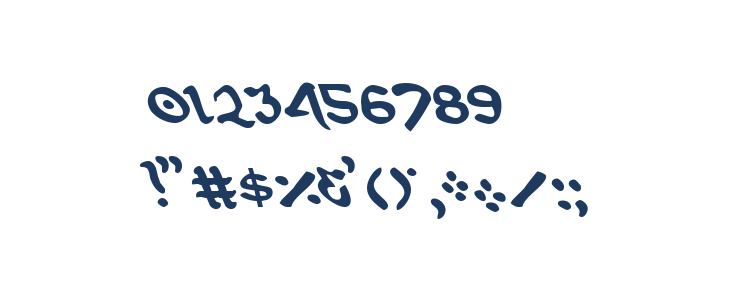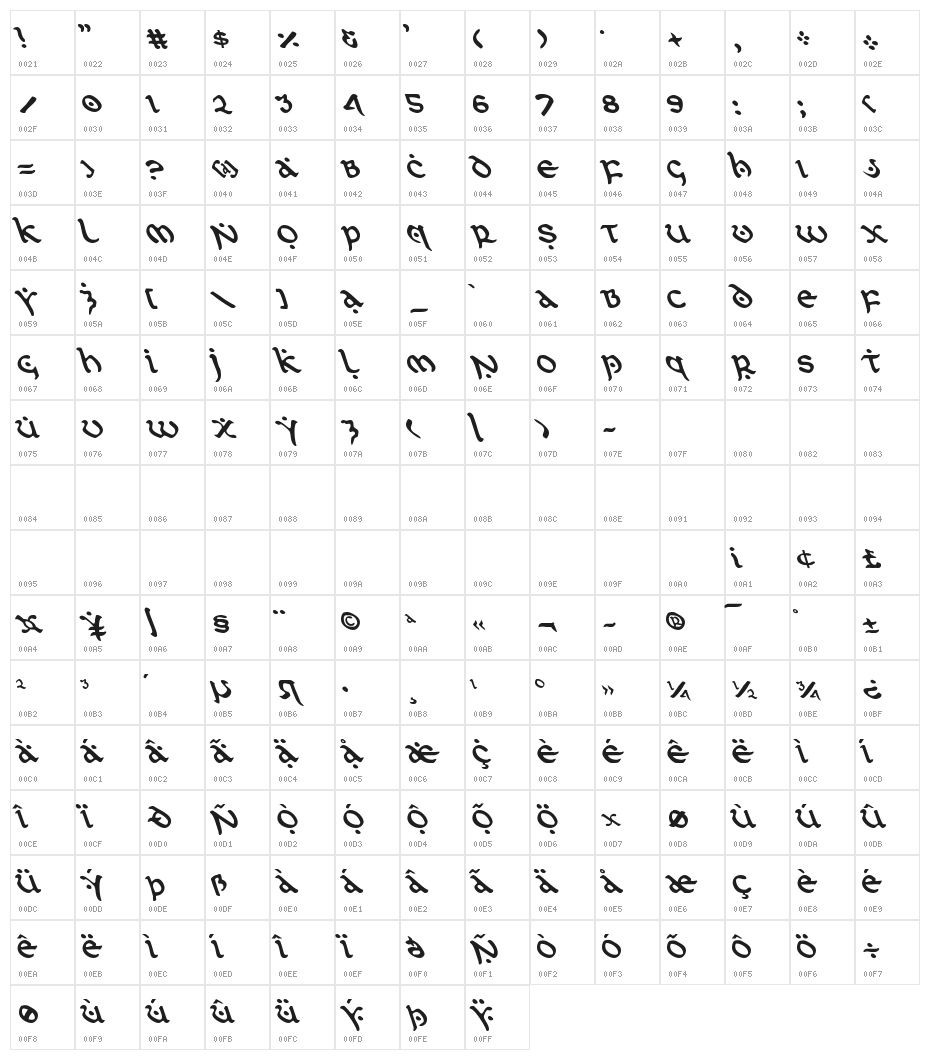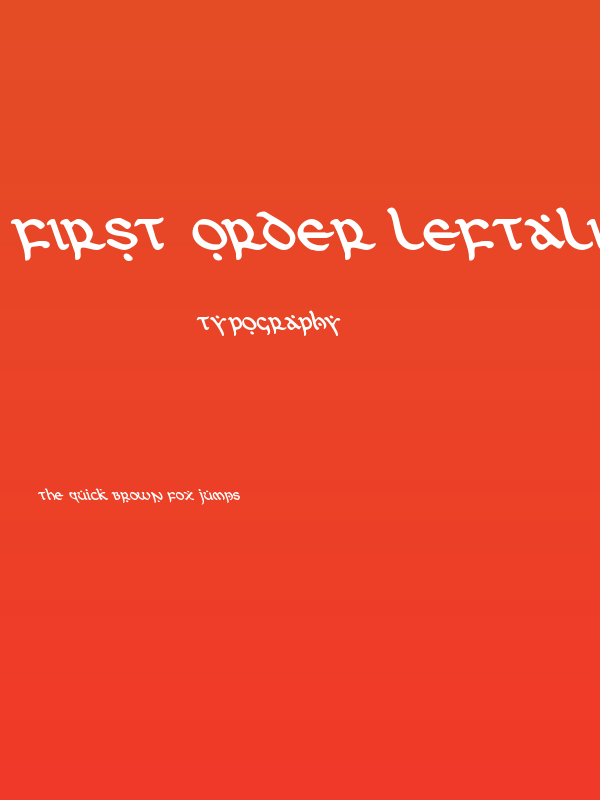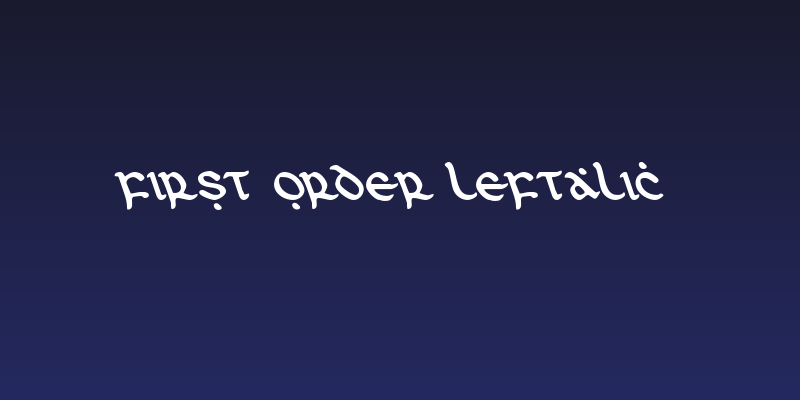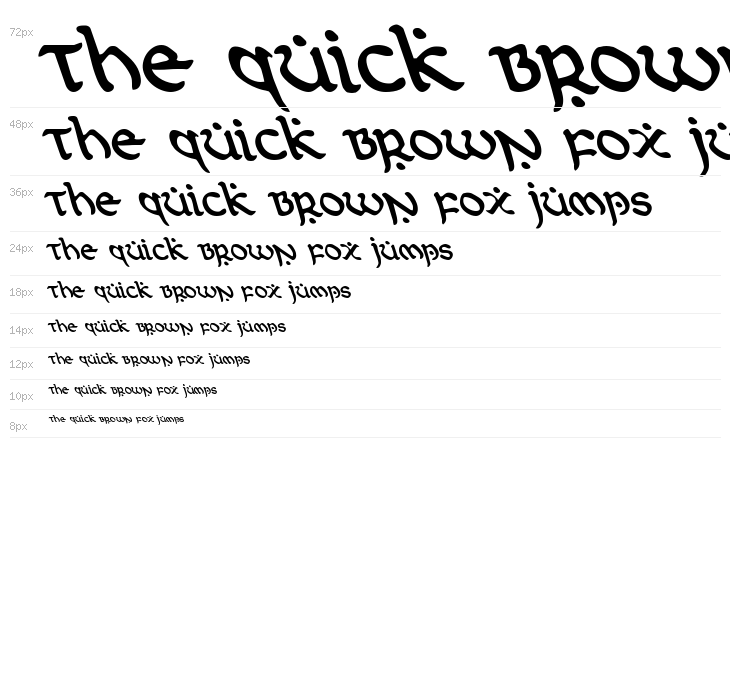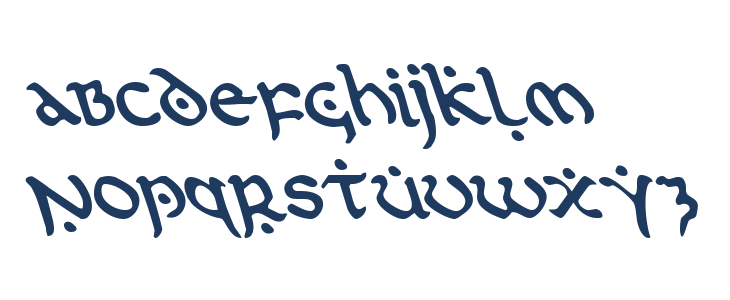
First Order Leftalic Font
First Order Leftalic Description
This font features a unique and artistic style, characterized by its flowing, calligraphic strokes and distinctive curves. The letters have a whimsical, almost playful appearance, with exaggerated serifs and a slight slant that gives them a dynamic feel. The uppercase and lowercase letters maintain a consistent style, with rounded edges and a sense of movement. The numerals are bold and follow the same artistic theme, making them stand out. Special characters are creatively designed, adding to the font's overall decorative appeal. This font is perfect for projects that require a touch of elegance and creativity.
| Use Case | Logos, Headlines, Artistic projects |
| Proposed Projects | Ideal for invitations, greeting cards, artistic posters, and branding materials that require a creative touch. |